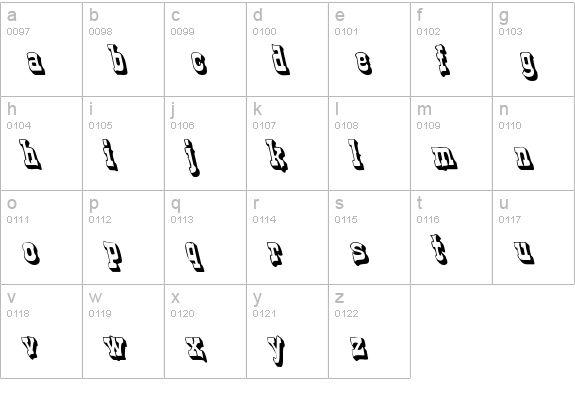
WesternShadowLefty Font Details
Introducing WesternShadowLefty, a captivating and unique font that brings a touch of the Wild West to your creative projects. This beautifully crafted typeface pays homage to the iconic style of old Western films, with its bold and rugged letterforms that evoke a sense of adventure and daring. With its distinctive shadow effect, WesternShadowLefty adds depth and dimension to your designs, making them stand out with an air of mystery and intrigue. Each letter is meticulously designed to capture the essence of the Western spirit, from the sharp serifs to the subtly slanted strokes that evoke the feeling of a handwritten note hastily jotted down in the heat of a cowboy's pursuit. What sets WesternShadowLefty apart is not just its stunning aesthetics, but also the fact that it is absolutely free. Yes, you read that right! You can easily download this remarkable font at FontsMarket.com without spending a penny. We believe that creativity should never be limited by financial constraints, and that's why we offer WesternShadowLefty as a freely available font for all to enjoy. Whether you're working on a poster for a rodeo event, designing a logo for a Western-themed brand, or simply looking to add a touch of rustic charm to your personal projects, WesternShadowLefty is the perfect choice. Its versatility and captivating style make it ideal for a wide range of applications, ensuring that your designs will always make a bold statement. So, don your cowboy hat and saddle up for a typography adventure like no other with WesternShadowLefty. Download this one-of-a-kind font today at FontsMarket.com and let your creativity roam freely across the vast landscapes of design possibilities.